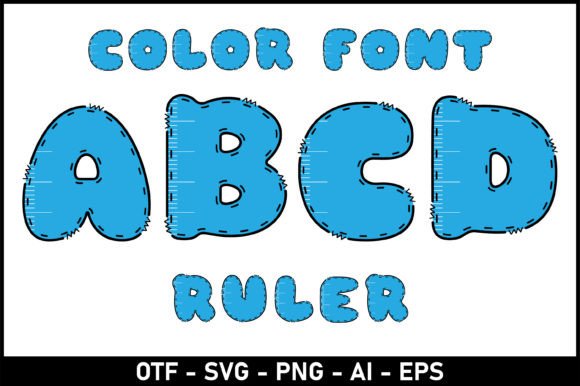
Welcome to the captivating world of Ruler Font, the ultimate font choice for expressing your creativity and adding a dash of fun to your designs. Crafted with meticulous care by Veil, this colorful font family is an explosion of vibrant hues and whimsical characters. Say goodbye to mundane and ordinary fonts and step into a realm of imagination and artistic expression where the possibilities are endless.
Unleash the power of Ruler Font to craft captivating children's books that bring stories to life. With its playful and easy-to-read design, your young audience will be enthralled as they journey through enchanting worlds and embark on exciting adventures. Whether you're designing posters, invitations, or greeting cards, Ruler Font will add a touch of magic to every project.
And here's the kicker! The Ruler Font family comes in two versions: the classic black and the vibrant color. While the black version is compatible with Cricut Design Space and a variety of cutting machines, the color version is perfect for those looking to add a burst of color to their designs. However, it's important to note that the color version is only compatible with specific design programs such as PhotoShop, Illustrator, Silhouette, and Inkscape.